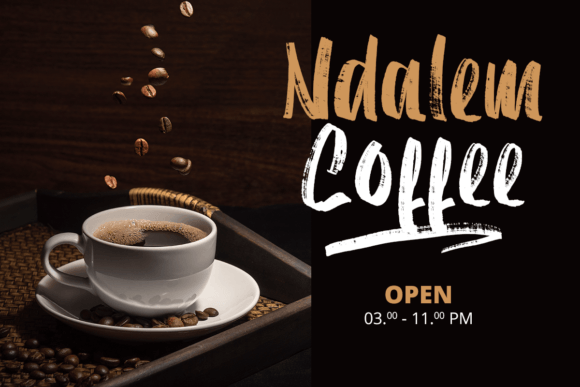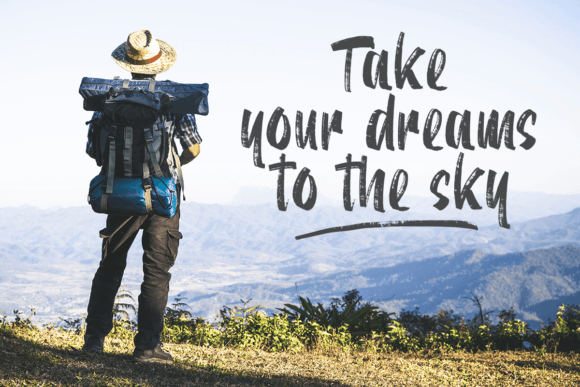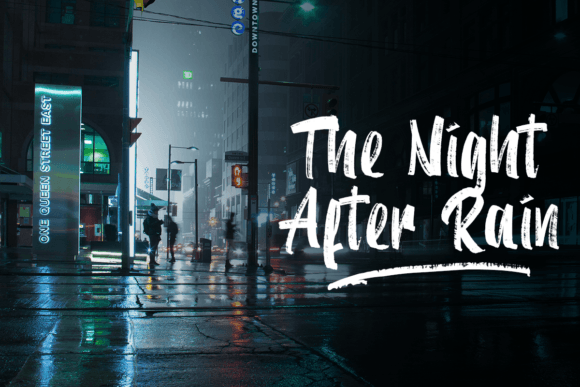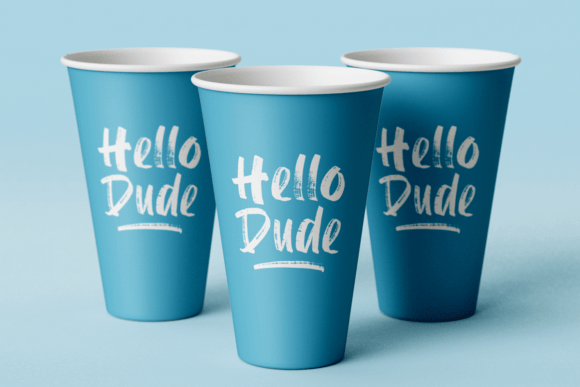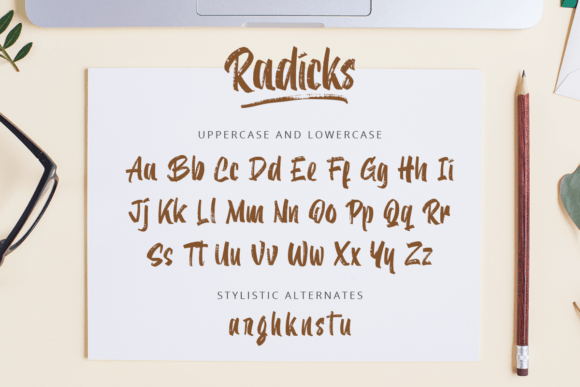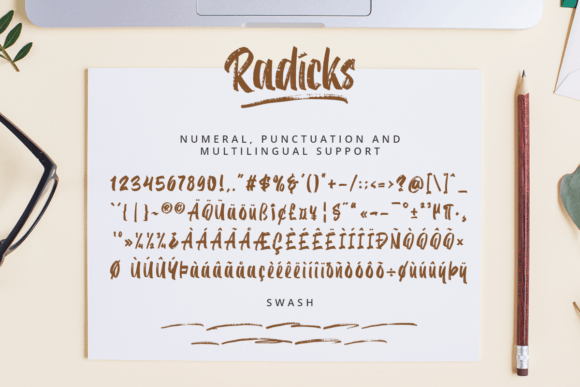
Introduction to Radicks Font
Radicks is a cursive brush display font with a romantic touch.
It can be used to create fun and romantic designs, or any other design idea you can think of This font is PUA encoded, which means you can access all of the cute glyphs and swashes with ease.
Key Features of Radicks Font